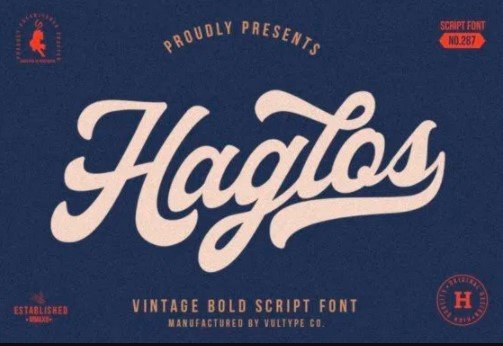
Today, we are offering the finest scripted typeface: Haglos Bold Script Font. This font features numerous stunning display characters, as shown in the image to give you an overview of its design elements.
The font contains very much interesting elegant and attractive designs that can easily attractive to its viewer. You can gain lots of audience by making the projects with this font. It is best for marketing purposes.
There are various designs can be made with this font, you can design cards, covers, invitations, and much more interesting works with the help of this font and can be used as pairing with the combination of myanmar font.
View Of Haglos Bold Script Font
This is beautiful bold scripted typeface which can easily download to use with the combination to primetime font as pairing for creating big projects attractively.
This typeface has a brushed and bold characters font which has a popular texture so that can also be used in pairing also to use with bevalonia font. That’s why each designer treated it as a really perfect font in all appreciate.
| Name | Haglos Bold Script Font |
| Designer | Vultype |
What Type of Font Is Haglos Bold Script?
The Haglos Bold Script Font is the famous and amazing typeface which was product of Vultype.
What’s the Closest Font to Haglos Bold Script?
The Caligraf Classical Calligraphy Script Font is very close to the font.